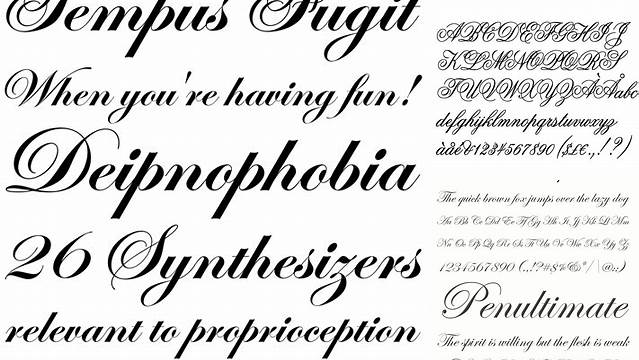
Hey guys! Are you on the hunt for that perfect Edwardian script font to give your Mac projects a touch of vintage elegance? You've come to the right place! In this article, we're diving deep into the world of Edwardian script fonts, exploring why they're so beloved, where you can find them for free, and how to make the most of them in your designs. So, grab your creative hats, and let's get started!
What Makes Edwardian Script Fonts So Special?
Edwardian script fonts, with their graceful curves and flourishes, evoke a sense of timeless sophistication. These fonts are inspired by the Edwardian era (1901-1910), a period known for its elegance and ornate design. Their flowing lines and calligraphic style make them ideal for projects that require a touch of class and refinement. Think wedding invitations, elegant logos, and sophisticated branding materials. The beauty of Edwardian script fonts lies in their ability to convey both formality and warmth, making them incredibly versatile for a wide range of applications. Edwardian script fonts aren't just fonts; they're a statement. They whisper of a bygone era, adding a layer of history and charm to your work. The intricate details and delicate strokes draw the eye, making them perfect for headlines, titles, and any element you want to stand out. But it's not just about aesthetics; it's about the feeling they evoke. These fonts can instantly transport your audience to a world of classic beauty and refined taste. When you choose an Edwardian script font, you're choosing to add a touch of magic to your project, a hint of the past that resonates in the present. They are a fantastic choice to use when looking to capture attention and leave a lasting impression on your audience. Choosing an appropriate font is paramount to the success of any design project, and Edwardian script fonts stand out as a testament to the elegance and sophistication of a bygone era. Their unique characteristics and stylistic features make them exceptionally well-suited for projects that seek to convey a sense of formality, grace, and timeless beauty. The distinct aesthetic of Edwardian script fonts is not just about visual appeal; it's also about the emotions and associations they evoke. These fonts have the remarkable ability to transport viewers to an era of opulence and refinement, lending an air of sophistication and grandeur to the projects they grace. They are particularly effective in designs that aim to capture the essence of classic elegance, making them an ideal choice for wedding invitations, formal event announcements, and high-end branding materials. For designers looking to inject a dose of history and charm into their work, Edwardian script fonts are an indispensable tool. Their timeless appeal ensures that they remain a relevant and stylish choice, capable of elevating the aesthetic of any project they are incorporated into. The use of Edwardian script fonts can significantly enhance the perceived value and elegance of a design, making them a favorite among professionals seeking to create memorable and impactful visual experiences.
Where to Find Free Edwardian Script Fonts for Mac
Top Free Edwardian Script Fonts
To help you get started, let's highlight a few standout free Edwardian script fonts that you can download for your Mac today!
- Edwardian Script ITC: This is a classic for a reason! It's elegant, legible, and widely used. While it might not be completely free for commercial use, it's often included in font bundles or available for trial periods, making it a great option to explore. It's a true embodiment of Edwardian elegance, perfect for projects that demand a touch of timeless sophistication.
- Freebooter Script: This font captures the essence of the Edwardian era with its flowing lines and delicate flourishes. It's a fantastic choice for invitations, logos, and anything that needs a touch of vintage charm. Freebooter Script is more than just a font; it's an artistic expression that elevates the visual appeal of any project it graces.
- CAC Champagne: This font is a bit more modern, but it still retains that classic script feel. It's clean, readable, and perfect for a variety of projects. CAC Champagne is an exceptional choice for designers looking to infuse their work with a dash of vintage charm while maintaining a contemporary edge.
- Herr Von Muellerhoff: This font has a bolder, more dramatic feel than some of the others, making it perfect for headlines and titles. It commands attention while still maintaining a sense of elegance. Herr Von Muellerhoff is a powerful tool for designers aiming to create visual impact and leave a lasting impression.
Remember, these are just a few examples, and there are many more free Edwardian script fonts out there waiting to be discovered. The best way to find the perfect font for your project is to experiment and see what works best!
Tips for Using Edwardian Script Fonts Effectively
Now that you've got your fonts installed, let's talk about how to use them like a pro. Edwardian script fonts are gorgeous, but they can also be tricky to work with if you're not careful. Here are a few tips to keep in mind:
- Use them sparingly: These fonts are best used for headlines, titles, and other prominent elements. Using them for large blocks of text can make your design look cluttered and difficult to read. Remember, less is often more when it comes to script fonts.
Unleash Your Creativity with Edwardian Script Fonts
So there you have it, guys! Everything you need to know about finding and using free Edwardian script fonts for your Mac. Now it's time to let your creativity flow! These fonts are a fantastic way to add a touch of elegance and vintage charm to your projects. Whether you're designing wedding invitations, logos, or simply sprucing up your personal projects, Edwardian script fonts are sure to make a statement. Just remember to check those licenses, experiment with different fonts and pairings, and have fun! Happy designing!